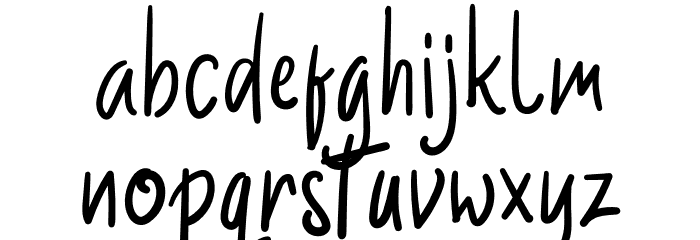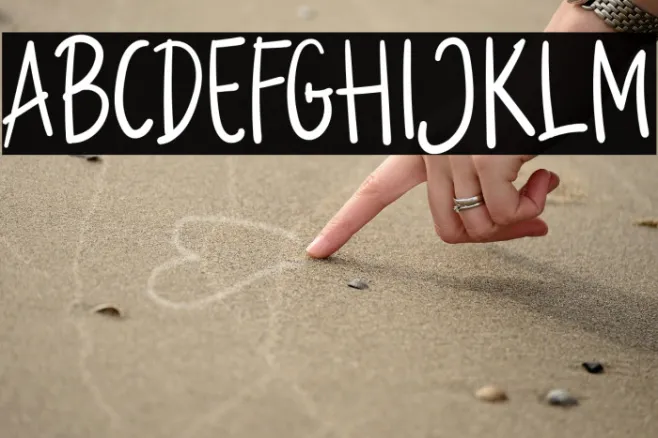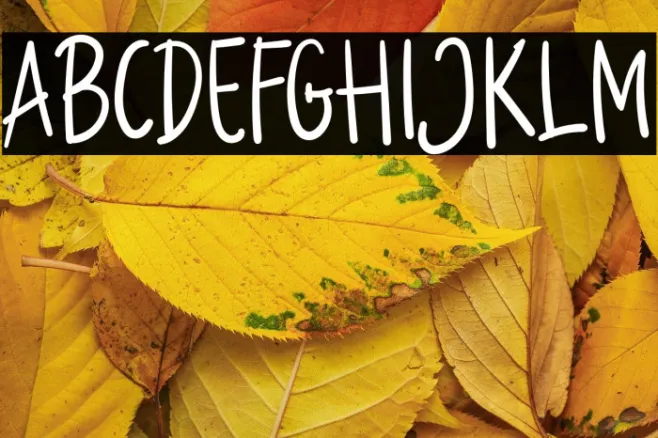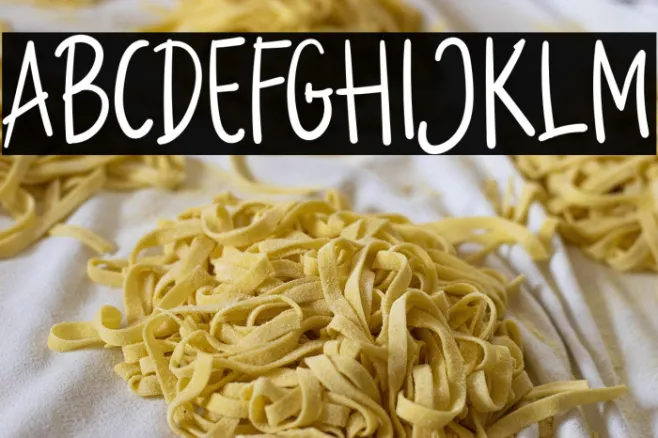
Jisman Font
This font features a playful and casual handwritten style, characterized by its smooth curves and slightly irregular strokes. The uppercase letters are tall and narrow, giving a sense of height and elegance, while the lowercase letters maintain a consistent flow with rounded edges. The overall appearance is friendly and approachable, making it suitable for informal and creative projects. The font lacks special characters, which limits its use in more formal or technical contexts. Its unique charm lies in the natural, hand-drawn aesthetic that adds a personal touch to any design.
A playful, handwritten font with smooth curves and a casual style.
- Font: Jisman
- Proposed Projects: Ideal for greeting cards, invitations, personal blogs, and creative branding.
- Category: Handwritten
- Overall Style: Casual
- Use Case: Logos, Headlines, Informal Text